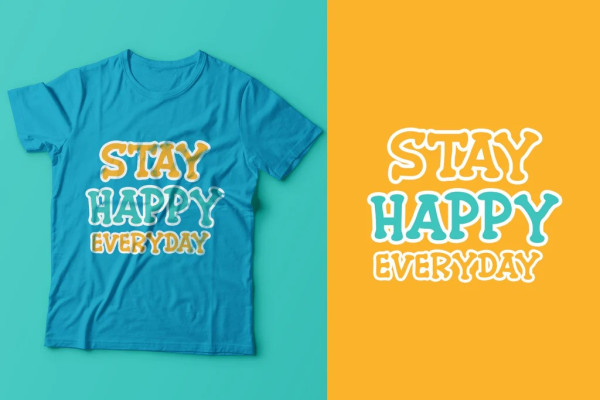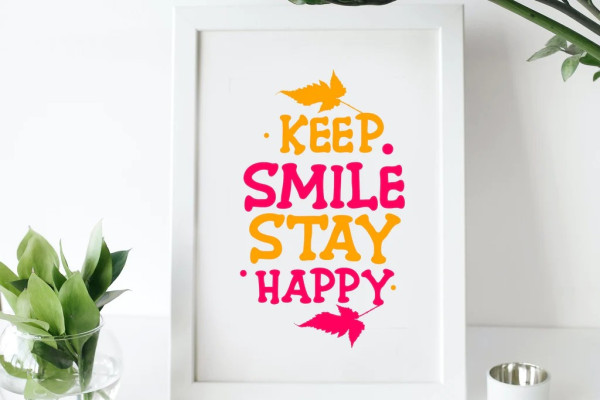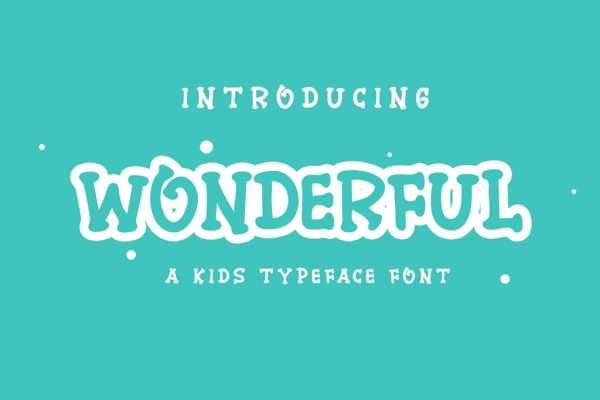
Wonderful Typeface
Wonderful Typeface, is a font with a cute, fun and joyful look. It will add a really fun touch to your designs. Add fonts to your designs with amazing ideas to make them shine. And use this font for various design ideas like t-shirt designs. funny,quetes,greeting cards,crafty and more